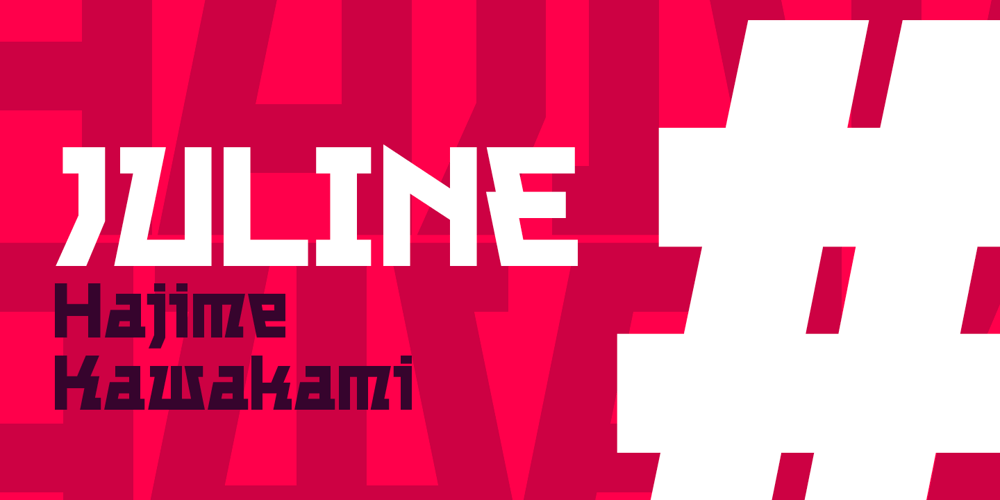
Juline
Juline font
Juline Font Family was designed by Hajime Kawakami and published by URW Type Foundry. Juline contains 1 styles and family package options. Juline has the character like a straight-based robot, mixed with curved letters.